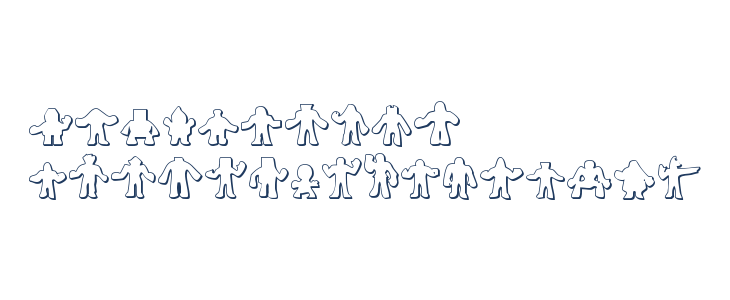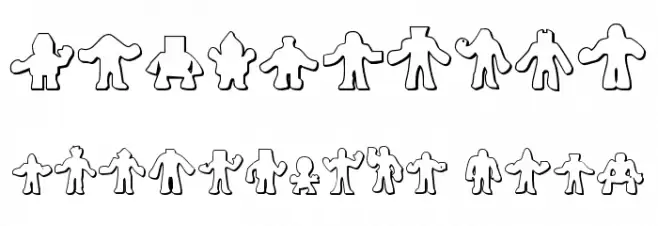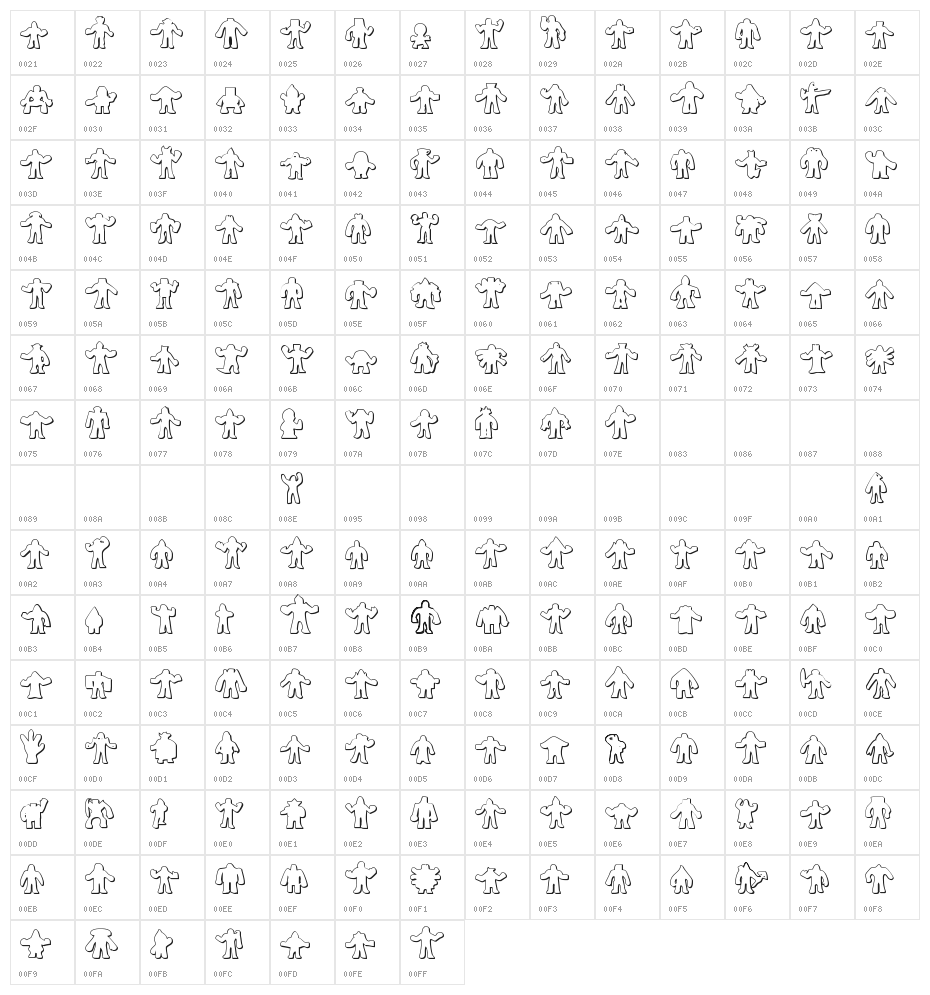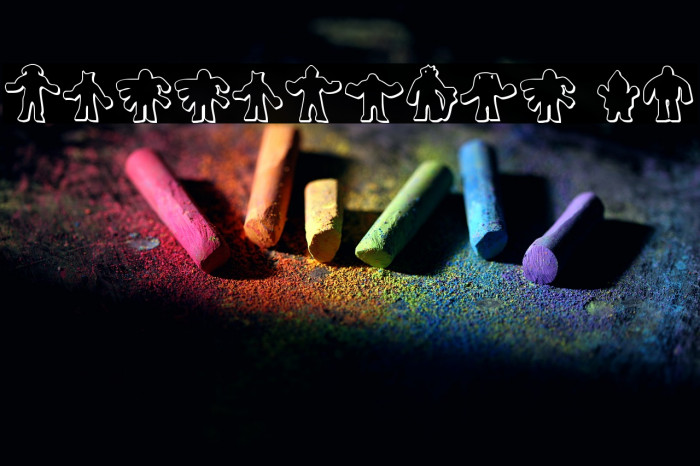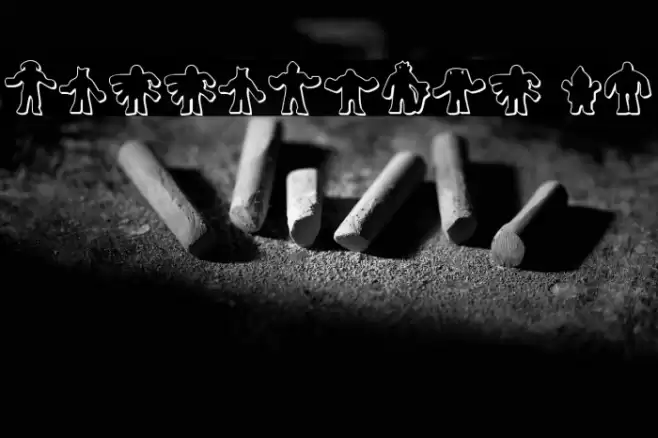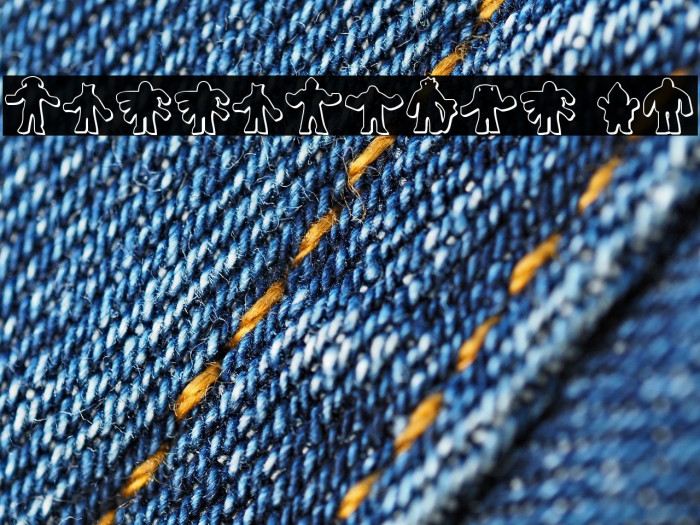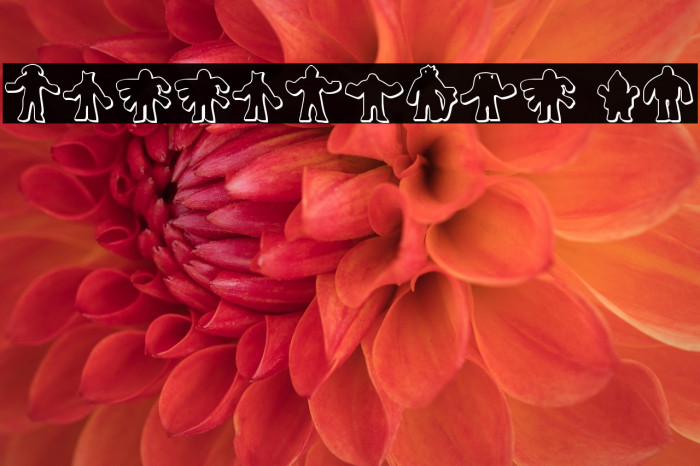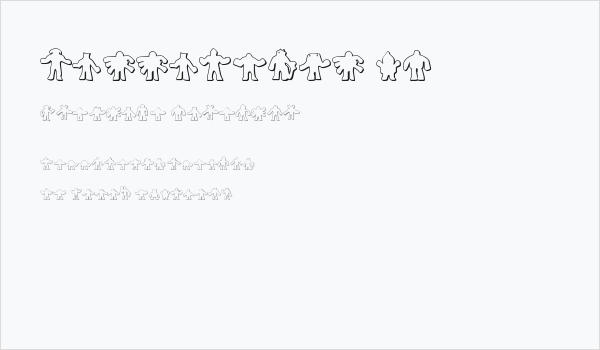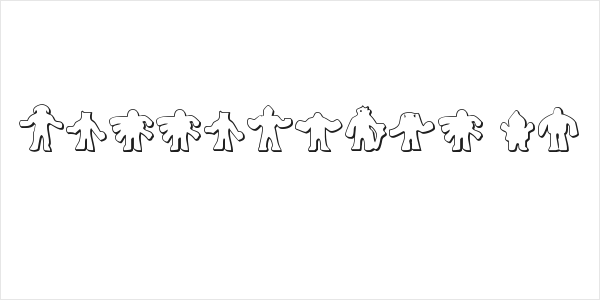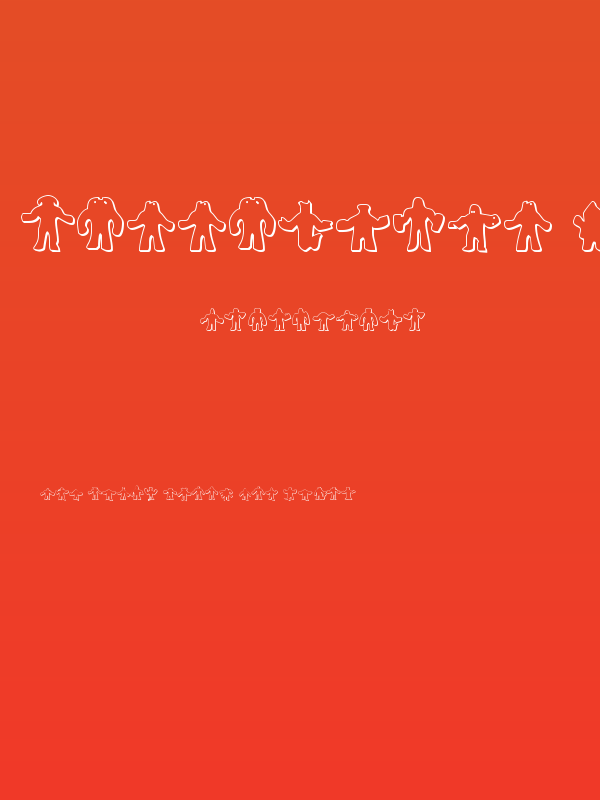
Kinnihuman 3D Font
Kinnihuman 3D Description
This is a playful and whimsical font where each character is represented by a unique humanoid figure. The characters are designed with a cartoonish style, featuring exaggerated and varied body shapes that give each letter a distinct personality. The font lacks traditional typographic elements, focusing instead on creativity and visual humor. Each character is outlined, providing a clear and bold appearance that stands out. The design is consistent across all characters, maintaining a cohesive look while allowing for individual expression within each letterform.
| Overall Style | Playful, Cartoonish |
| Use Case | Logos, Posters, Children's Books |
| Proposed Projects | Ideal for children's books, playful branding, comic strips, and creative posters. |